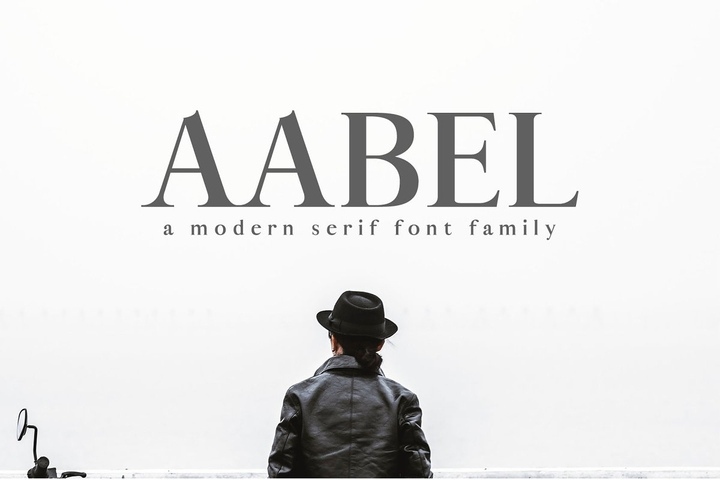
Aable A Modern Serif Font Family
This sophisticated typeface is perfect for technology companies, startup branding, digital magazines, contemporary websites, innovative products, modern advertising, tech publications, progressive organizations, and forward-thinking design applications.
What makes this font exciting is its technological precision combined with human warmth, offering designers a balanced typeface that captures digital innovation while delivering accessible sophistication and user-friendly contemporary appeal.
The Aable Modern Serif font family includes ultralight, light, regular, medium, semibold, bold, and extrabold variations, providing complete technological design solutions for creating accessible modern visual identities.
Whether you're developing innovative tech brands or crafting user-centered design experiences, Aable A Modern Serif Font Family Free Download brings exceptional technological sophistication and accessible authenticity to every application. This balanced typeface combines cutting-edge typography with human-centered design principles, creating letterforms that feel both advanced and approachable. The font's technological construction and usability-ready details make it perfect for companies seeking immediate innovation recognition.
Aable A Modern Serif Font Family features carefully engineered accessible styling with authentic technological character that conveys genuine digital expertise. Each weight has been optimized for different technological applications, with precisely balanced proportions and refined serif details that enhance the user-friendly aesthetic. The font's technological qualities make it particularly effective for software companies and digital applications.
Professional designers choose Aable A Modern Serif Font Family for projects requiring authentic technological credibility and accessible atmosphere. Its innovation heritage makes it exceptionally well-suited for tech startups, software platforms, and digital-first organizations. The font's versatile weight system allows designers to create sophisticated technological hierarchies, from subtle interface elegance to bold innovation authority.
The complete Aable A Modern Serif Font Family package offers extensive technological character sets and advanced OpenType features that enhance the accessible aesthetic. Advanced typography controls allow designers to create complex digital effects with multiple weight combinations. This comprehensive technological toolkit ensures designers have everything needed to create authoritative digital communications that celebrate the perfect balance between technological advancement and human accessibility.